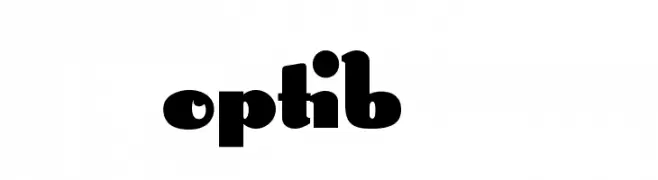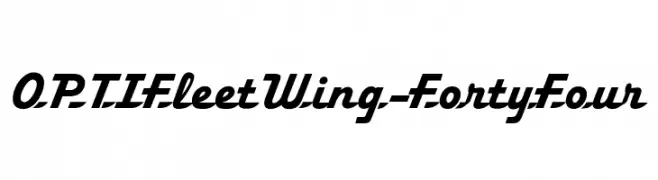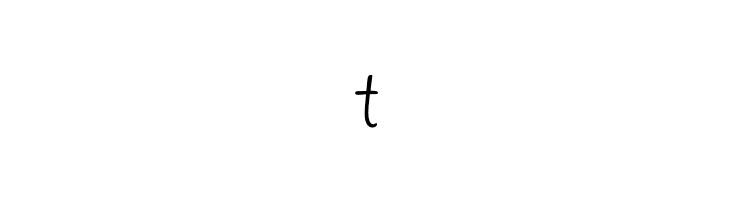
A bold, italic script font with a dynamic and modern style.
A bold, heavy serif font with strong, commanding strokes.
A bold, rounded font with a playful and robust style.
A bold, modern sans-serif font with a slightly condensed style.
A bold, three-dimensional font with a vintage, shadowed style.
A classic serif font with elegant, well-defined characters and sharp serifs.
A bold, playful font with rounded strokes and a vintage-modern appeal.
A classic serif typeface with high contrast and elegant, elongated forms.
A refined serif typeface with high contrast and elegant serifs.
A playful, handwritten-style font with smooth, medium-thick strokes.